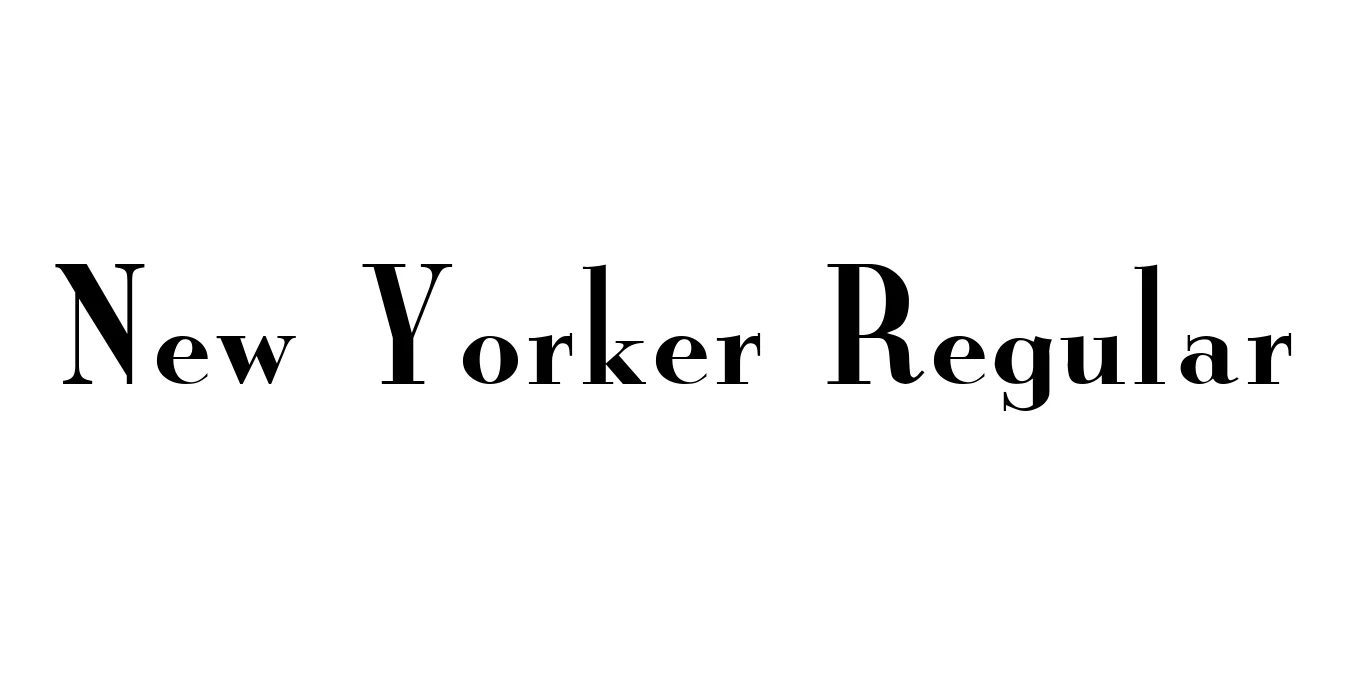
New Yorker Regular
Designed by Gert Wiescher
| Font Name | New Yorker |
| Category | Display Serif |
| Designer | Gert Wiescher |
| Similar Fonts | New Yorker Type, Irvin, ITC Anna, Broadway, Peignot |
The New Yorker Regular font is a timeless typeface inspired by the iconic hand-lettered logo of The New Yorker magazine. Originally designed by the magazine's first art director, Rea Irvin, in 1925, the letterforms evoke the sophisticated and whimsical spirit of the Art Deco era. This digital revival captures the unique character of the original drawings, blending elegance with a touch of eccentricity that has become synonymous with high-end literary culture.
This typeface is characterized by its high-contrast strokes, tall x-heights, and distinctively stylized characters such as the uniquely slanted 'e' and sharp terminals. It is primarily used as a display font for editorial projects, book covers, and branding that requires a vintage yet polished aesthetic. Its ability to convey authority and wit simultaneously makes it a favorite among designers looking to replicate the classic Manhattan aesthetic of the early 20th century.
New Yorker Regular Best Uses
Perfect for magazine mastheads, headers, and literary pull-quotes.
Ideal for luxury brands and fashion labels seeking a classic identity.
Great for high-end gala invites or vintage-themed party posters.
Works exceptionally well for historical fiction and biographical literature.